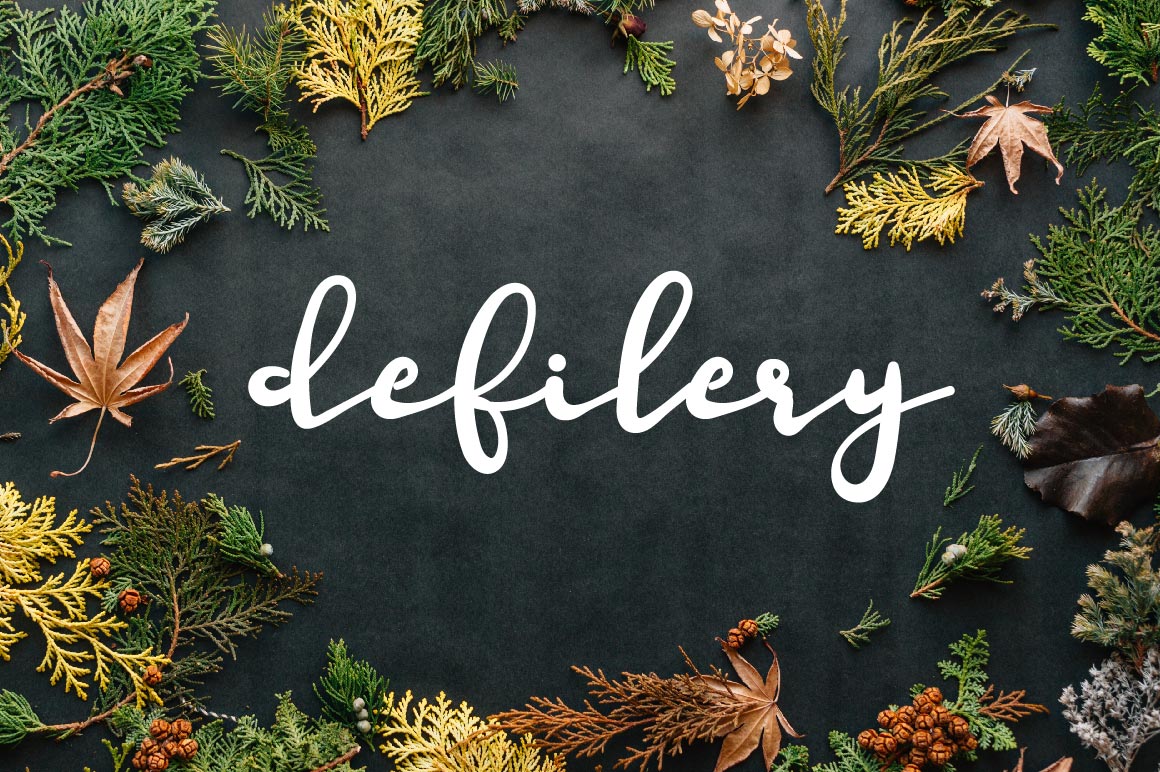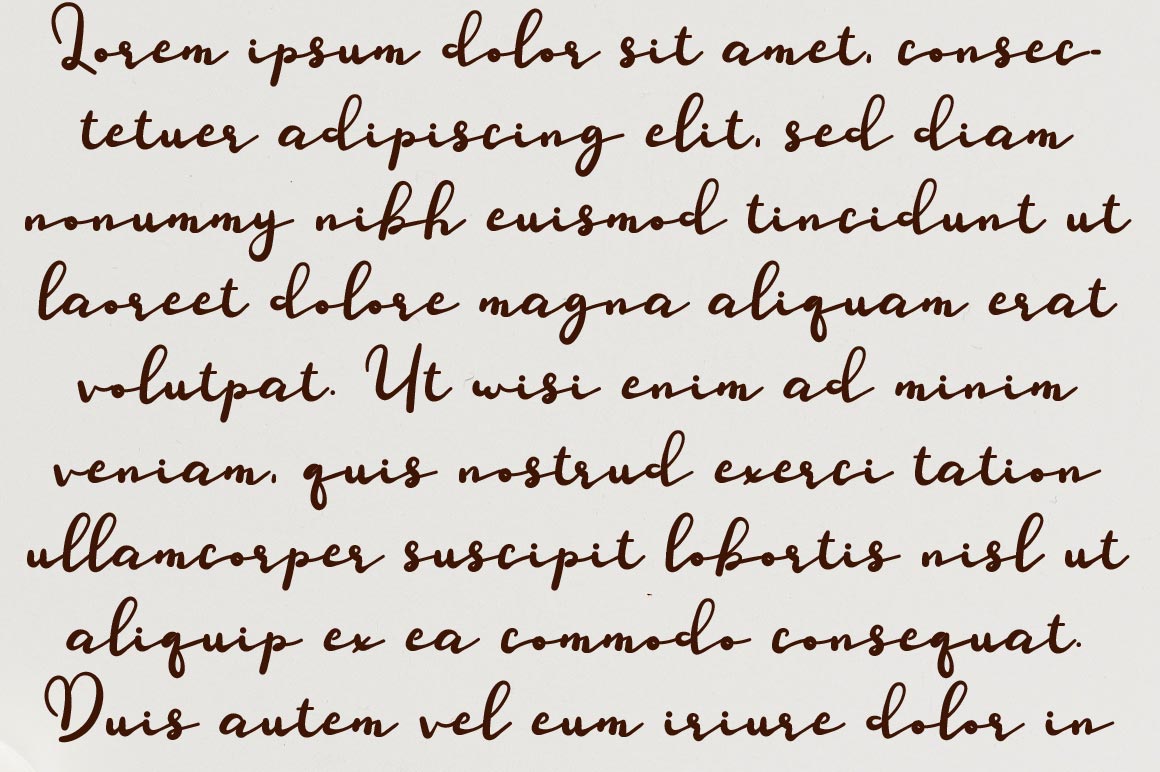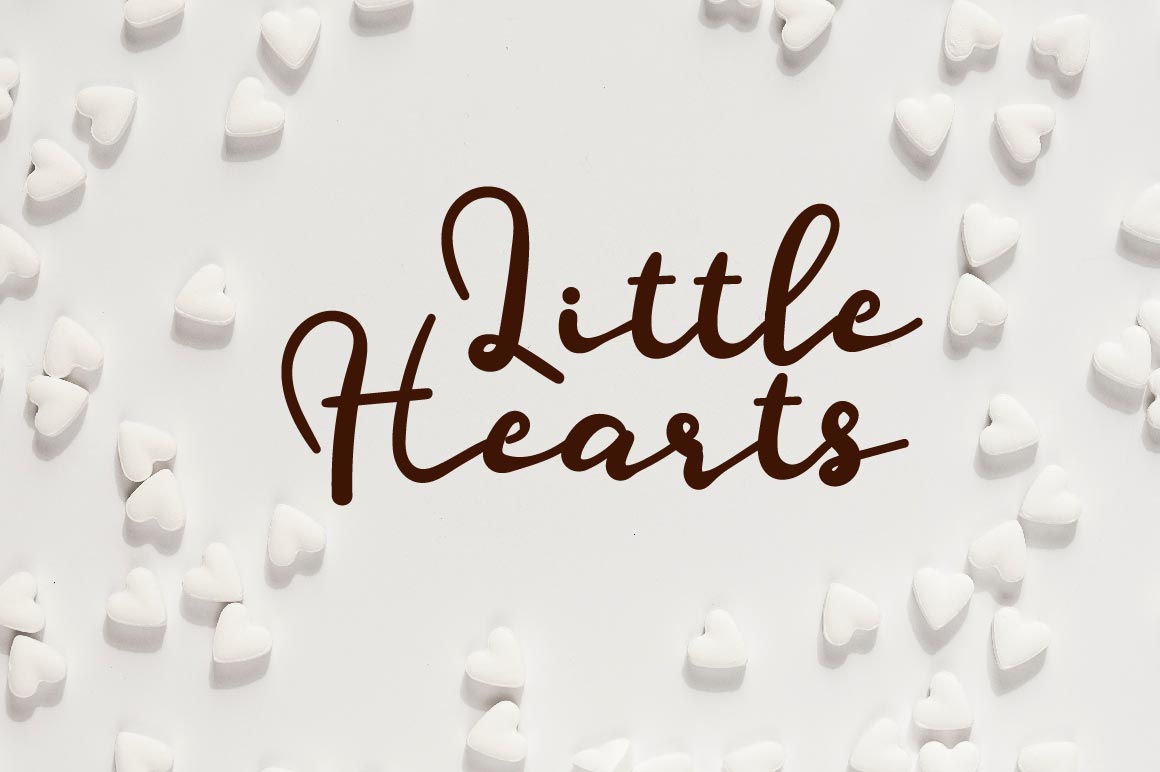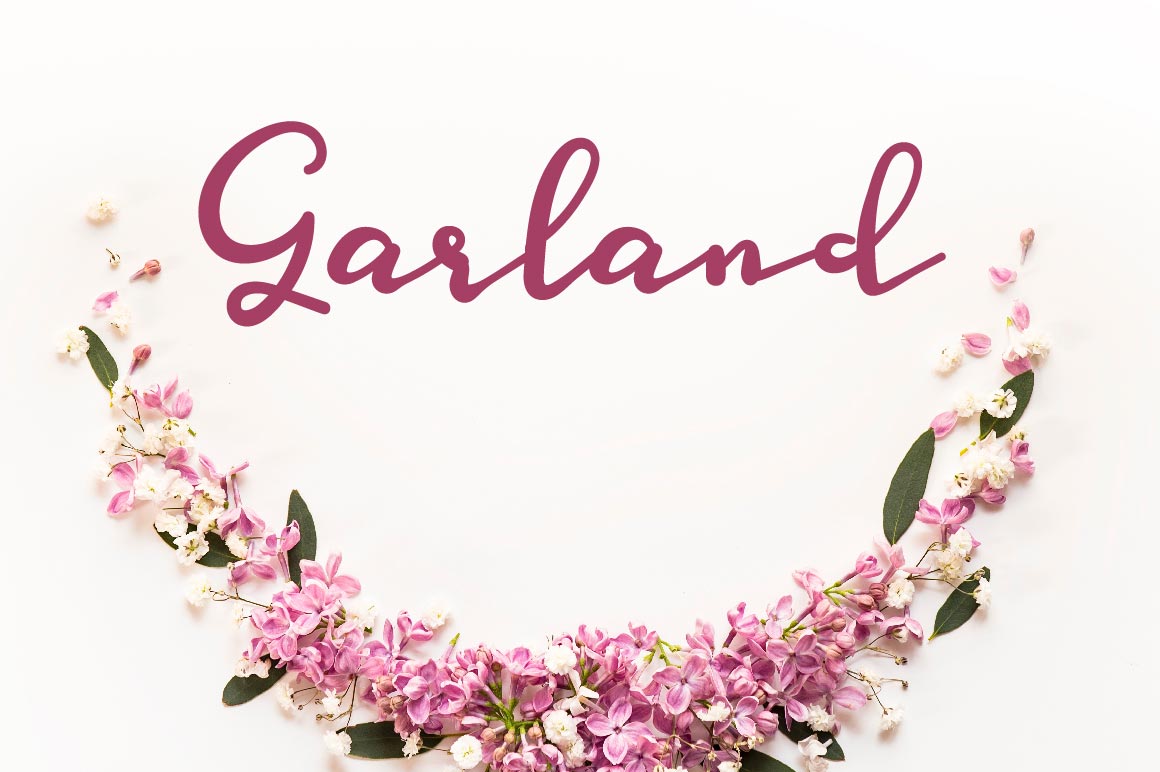
Defilery Script Free Font
Defilery Script Free Font is a decorative script font that can be used in myriad places. The typeface has been carefully crafted to make your text look beautiful. With a modern style, this font is perfect for many different projects ex: quotes, blog header, poster, wedding, branding, logo, fashion, apparel, letter, invitation, stationery, etc. This free typeface was designed by a talented Akanksha Rawat. If you like it don’t forget to check out the full version.